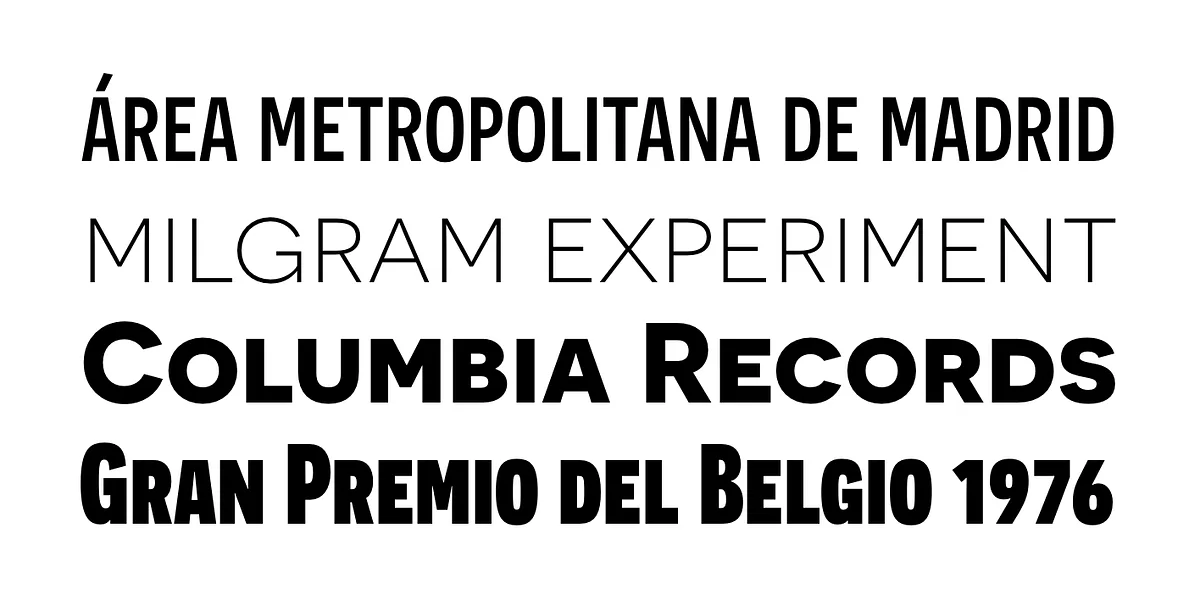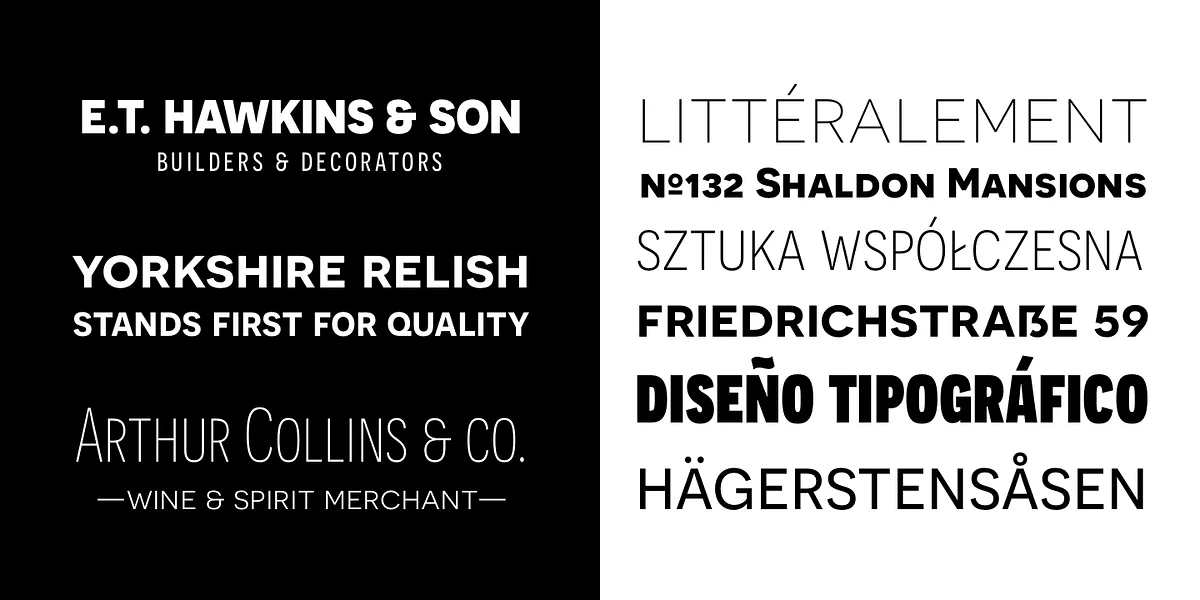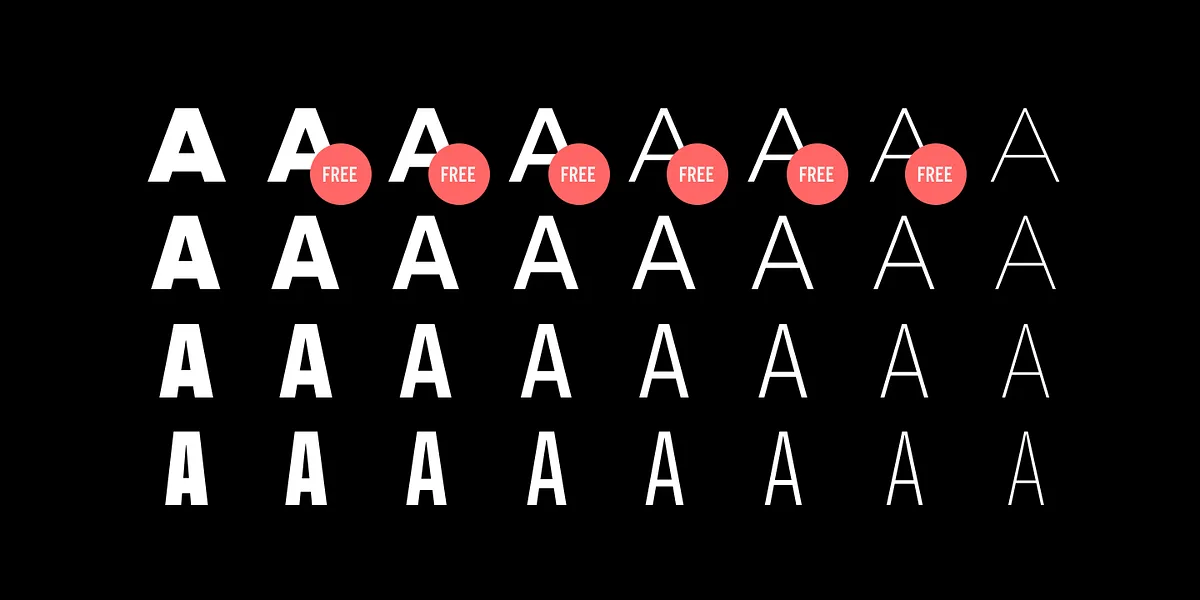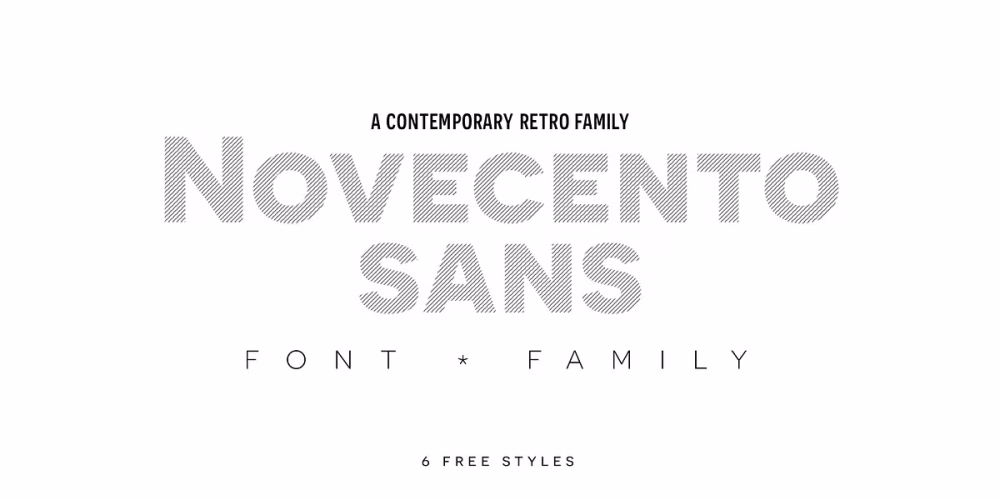
This is the 3rd release of Novecento sans, an uppercase-only font family inspired on european typographic tendencies between the second half of 19th century and first half of the 20th.
It looks rational and geometric. However, it is optically corrected and balanced. This font face is designed to be used mostly for headlines, visual identities or short sentences, both in big and small sizes. Lighter faces provide a more contemporary and design look&feel, while the bolder ones definitely look retro.
Novecento Sans family comes in 32 styles, speaks 76 latin based languages, has 590 glyphs and 16 stylistic opentype features for advanced typography.